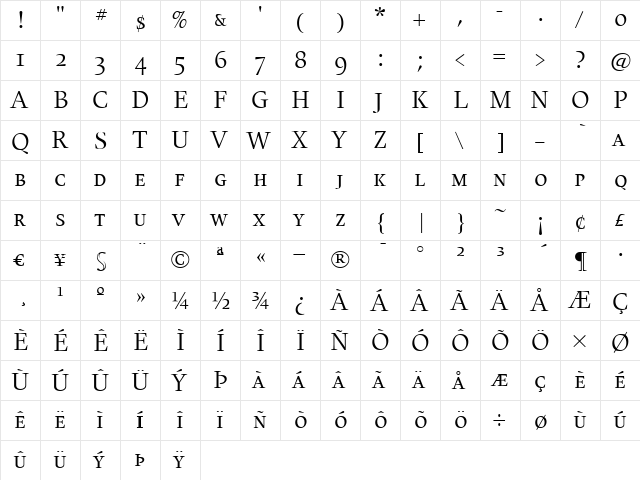
UnionSmallCaps Regular
Design Context for UnionSmallCaps Typeface
UnionSmallCaps takes a measured approach to typography — its balanced proportions and neutral character make it a reliable workhorse for both digital and print work.